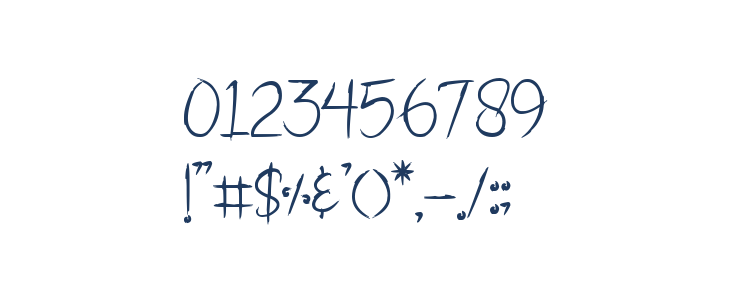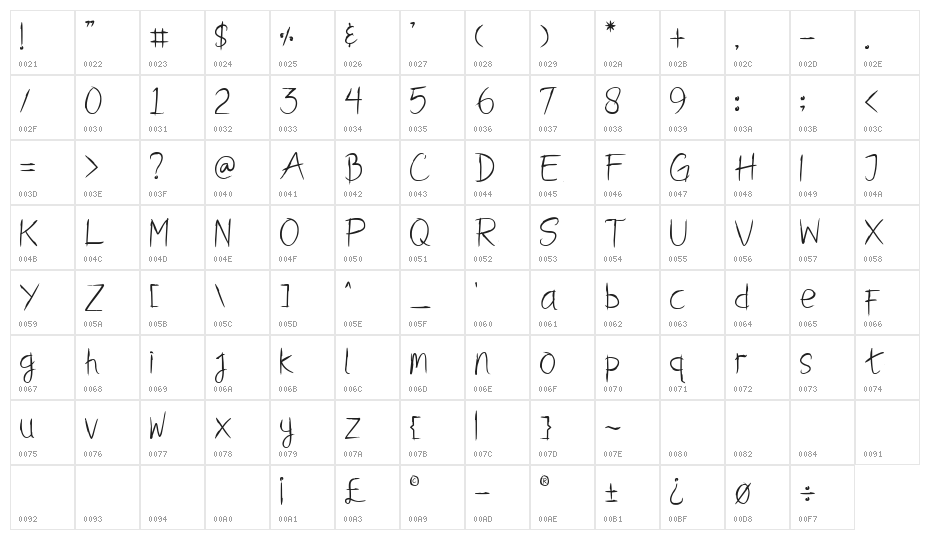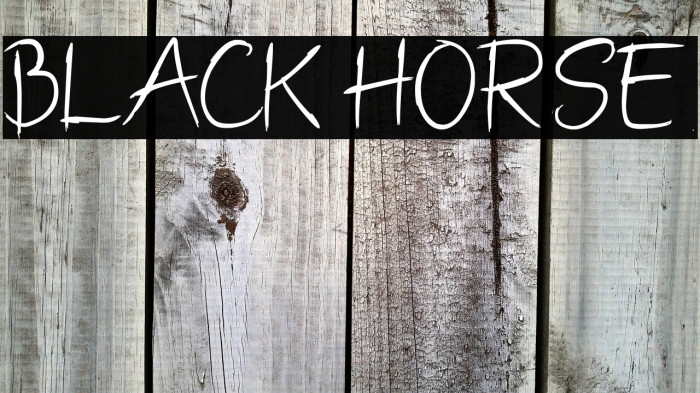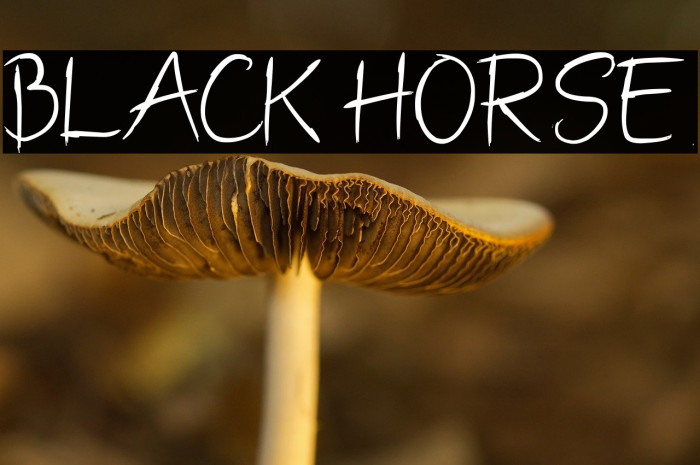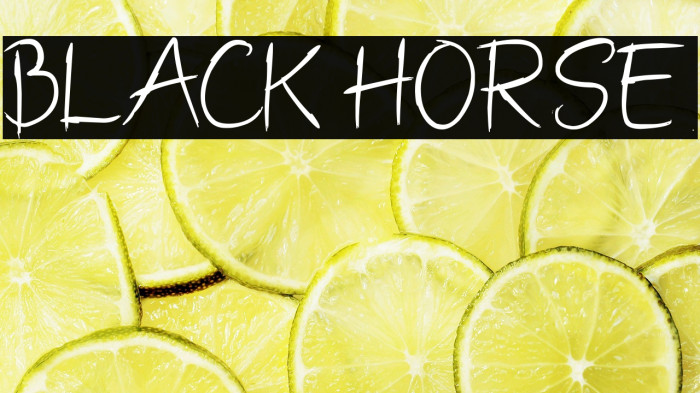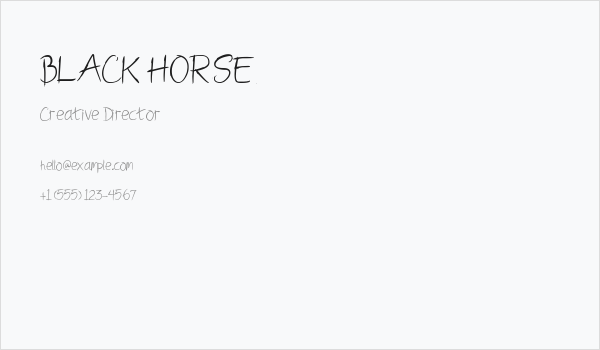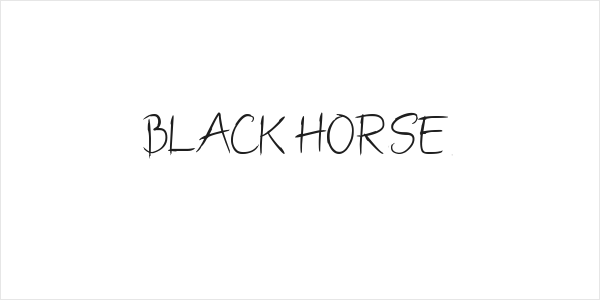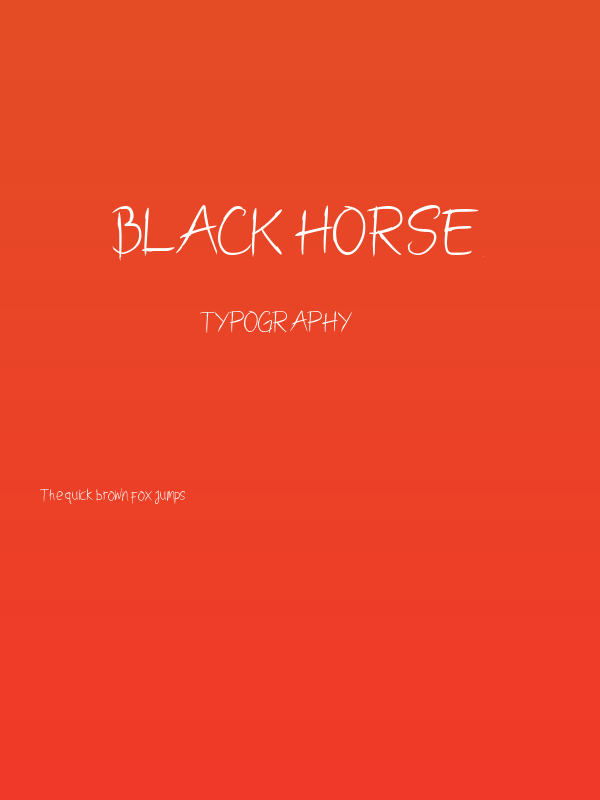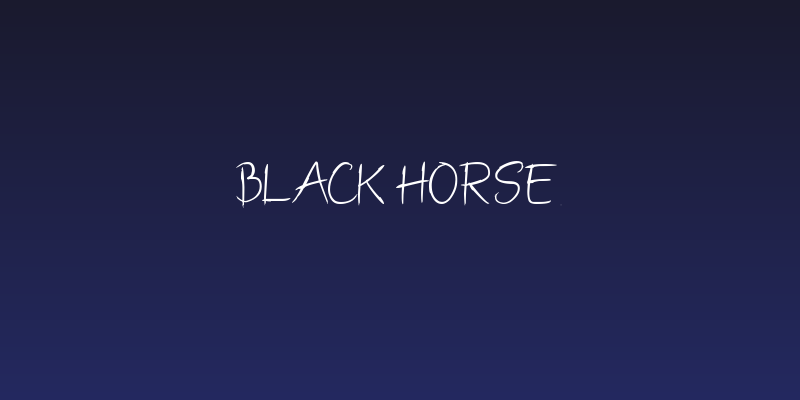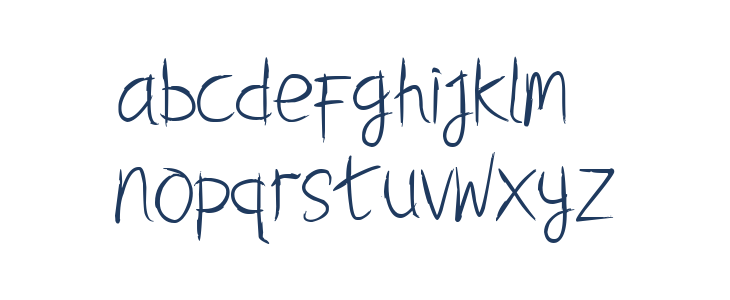
BLACK HORSE Font
BLACK HORSE Description
This font features a dynamic and energetic handwritten style, characterized by its irregular strokes and playful curves. The letters exhibit a natural flow, reminiscent of casual handwriting with a touch of artistic flair. The uppercase letters are bold and slightly angular, while the lowercase letters maintain a consistent fluidity. Numbers and special characters follow the same lively aesthetic, making the font versatile for various creative applications. The overall appearance is both approachable and distinctive, suitable for projects that require a personal touch.